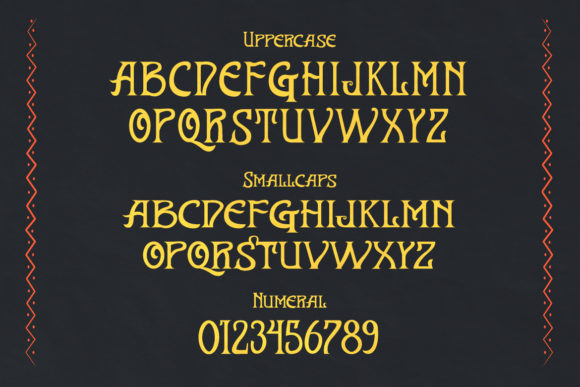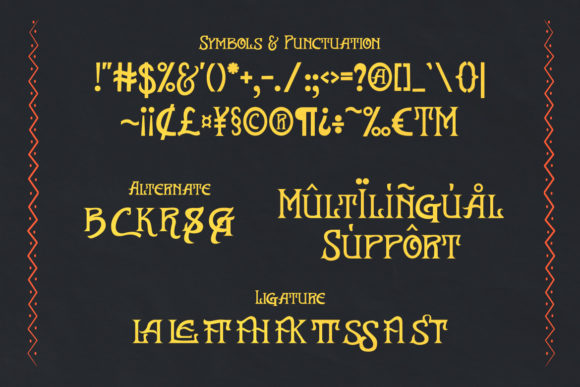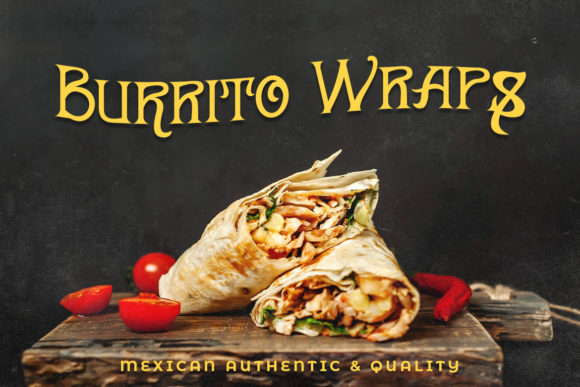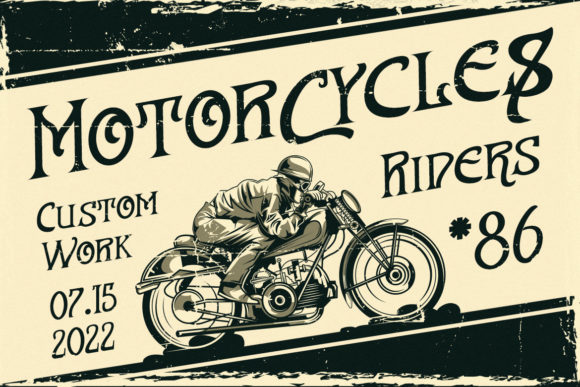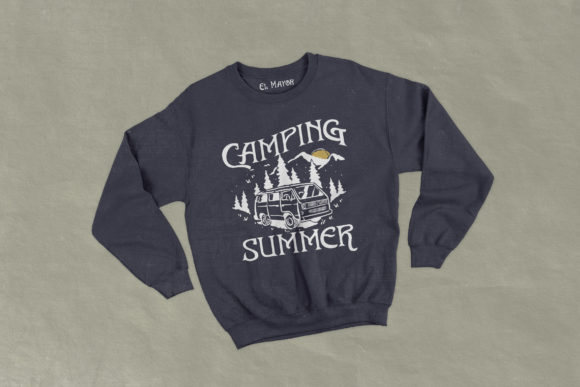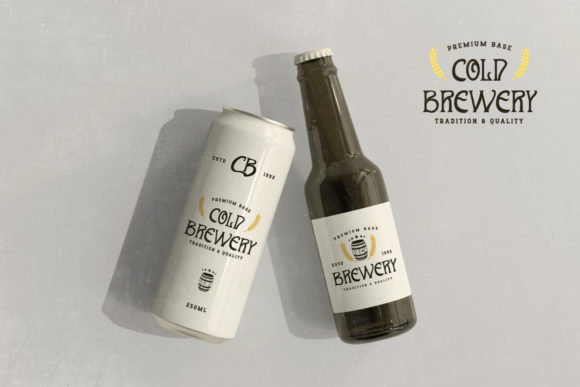
Introducing El Mayor Font: A Vintage Styled Display Font with a Distinct Touch
Are you tired of using the same old fonts in your designs? Look no further than El Mayor Font, a cool and uniquely designed vintage styled display font that’s sure to add a touch of elegance and sophistication to your creations. In this article, we’ll take a closer look at El Mayor Font, its features, and how it can elevate your designs.
What is El Mayor Font?
El Mayor Font is a display font that’s designed to make a statement. With its imposing and uniquely shaped letters, this font is perfect for designers and crafters who want to add a distinct touch to their creations. Whether you’re working on a logo, poster, or website, El Mayor Font is sure to grab attention and leave a lasting impression.
Key Features of El Mayor Font
- Uniquely designed letters: Each letter in El Mayor Font is carefully crafted to stand out from the rest. The font features a range of unique shapes and styles that will add a touch of personality to your designs.
- Vintage style: El Mayor Font has a classic, vintage feel that’s reminiscent of old-school posters and signs. This font is perfect for designers who want to add a touch of nostalgia to their creations.
- Display font: El Mayor Font is designed specifically for display purposes, making it perfect for headlines, titles, and other prominent text elements.
- Add a touch of elegance: With its vintage style and uniquely shaped letters, El Mayor Font is the perfect way to add a touch of elegance and sophistication to your designs.